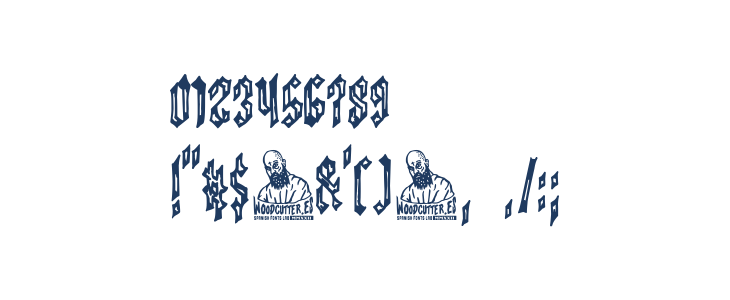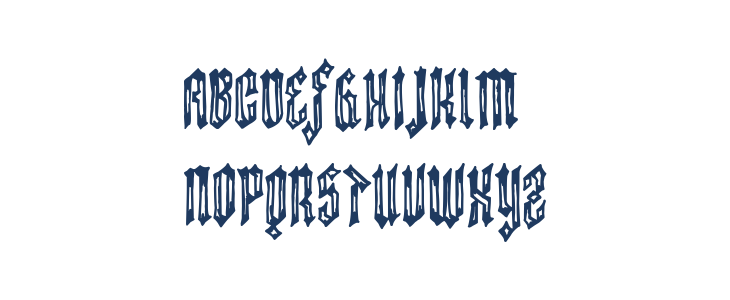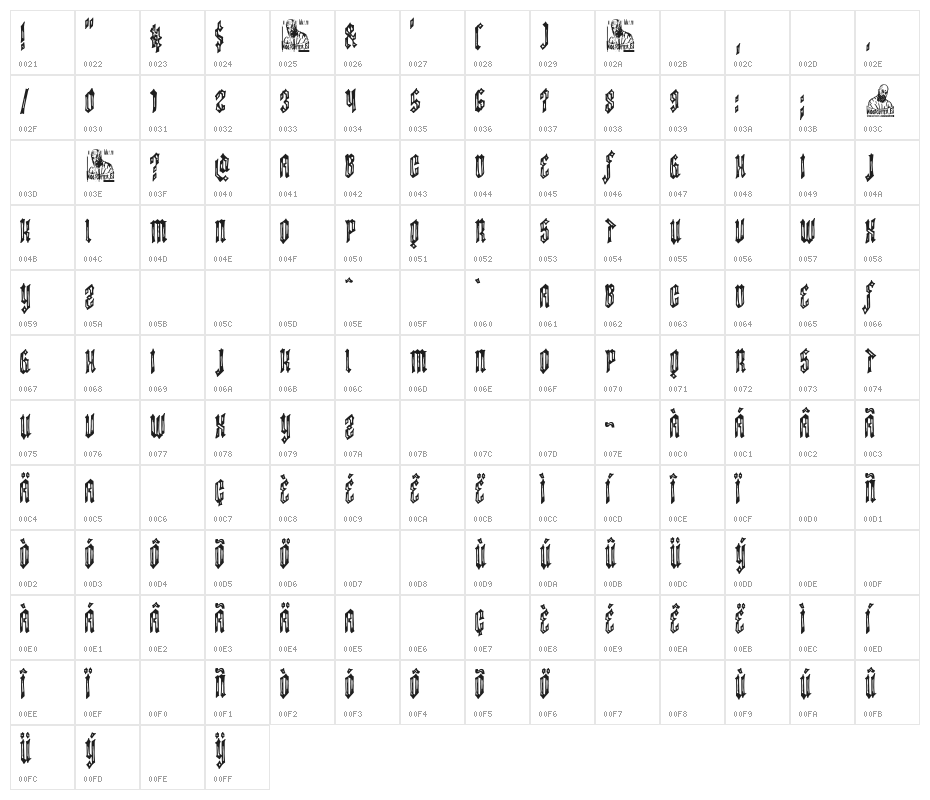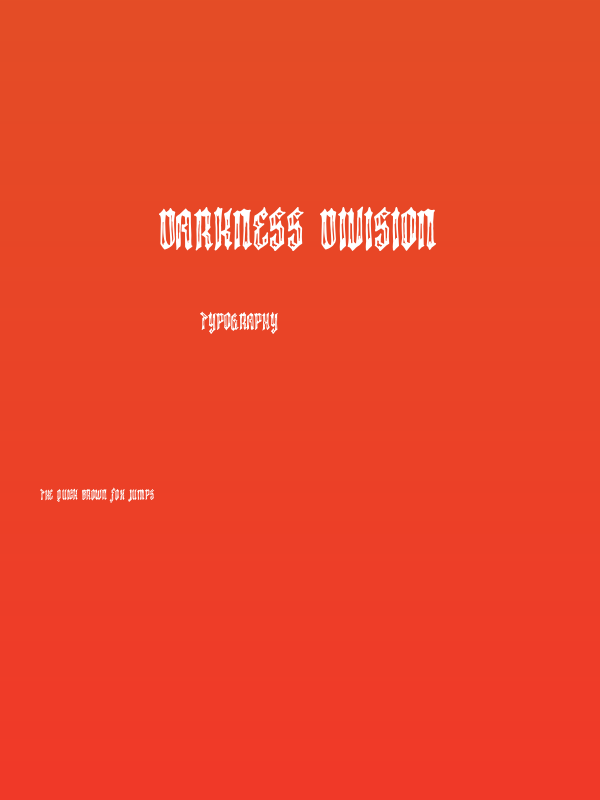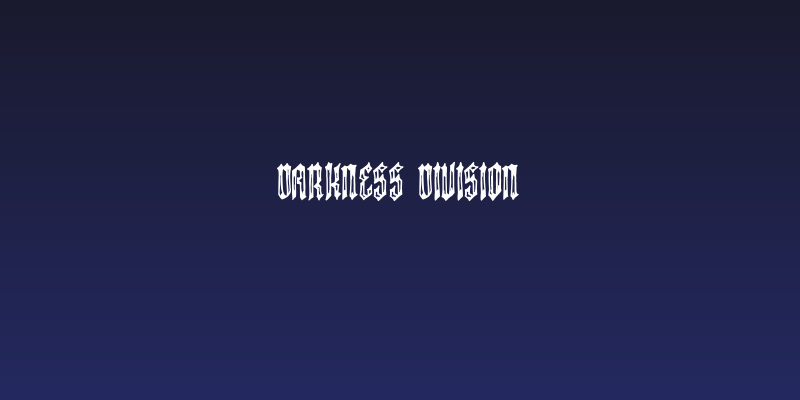
Darkness Division Font
Darkness Division Description
A highly stylized, angular typeface with sharp, pointed edges and heavy vertical strokes, reminiscent of traditional blackletter or gothic calligraphy. The characters are bold and condensed, with dramatic contrast between thick and thin lines, and ornamental details that give a dark, medieval appearance.
| Overall Style | Decorative, Gothic, Vintage |
| Use Case | Logos, Headlines, Posters, Themed graphics |
| Proposed Projects | Horror posters, metal band logos, tattoo designs, gothic-themed event invitations, video game titles. |